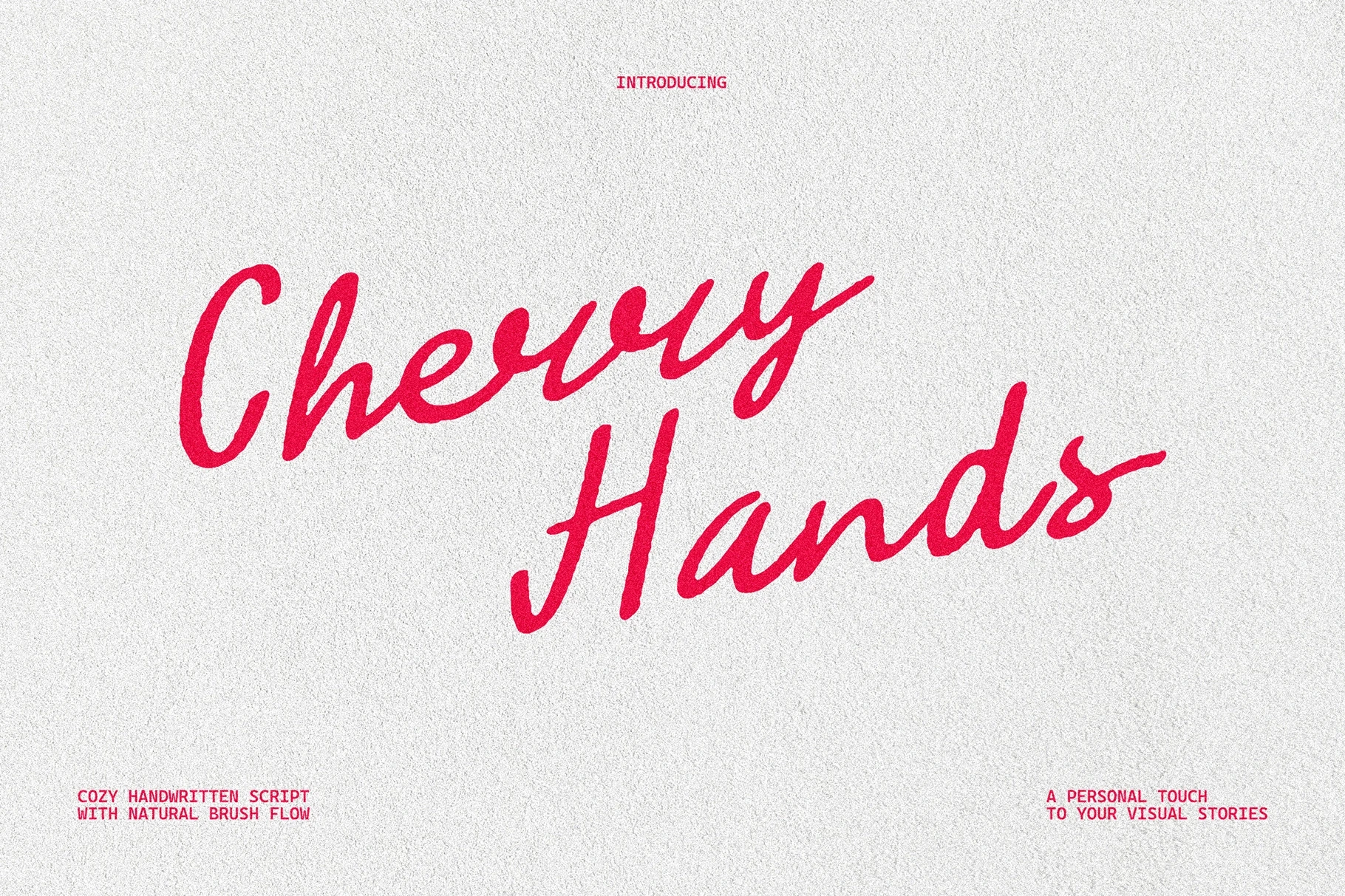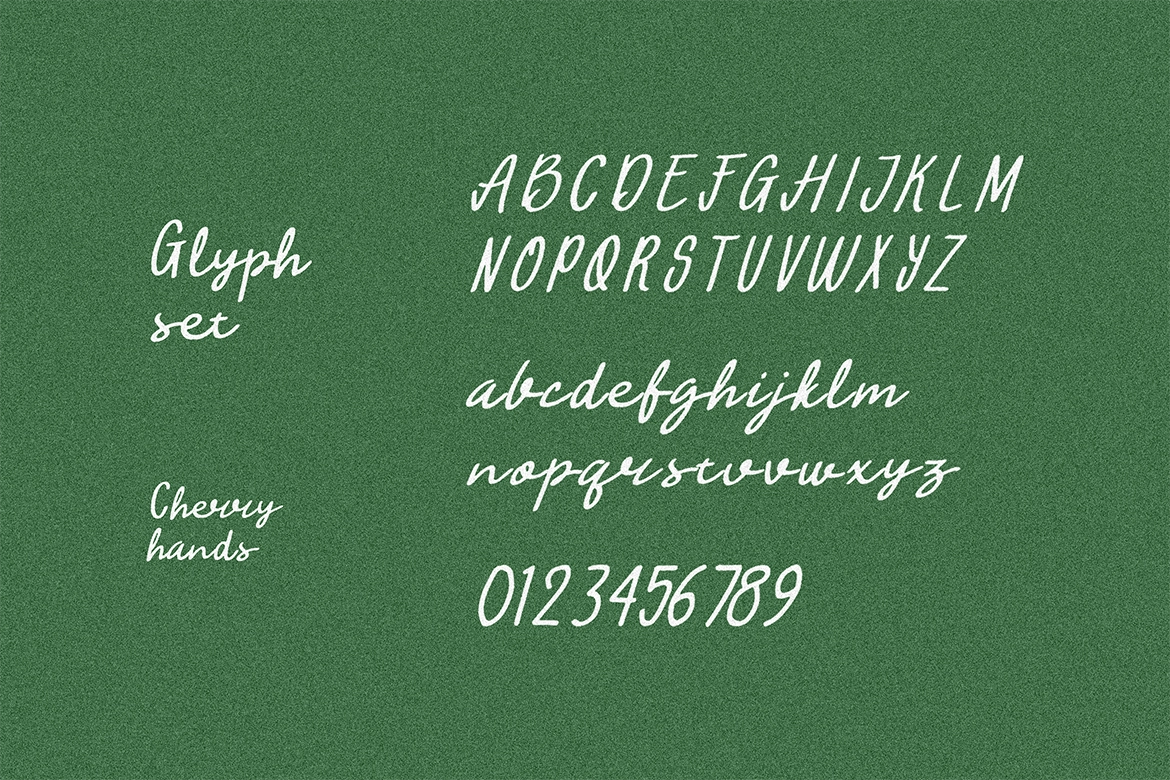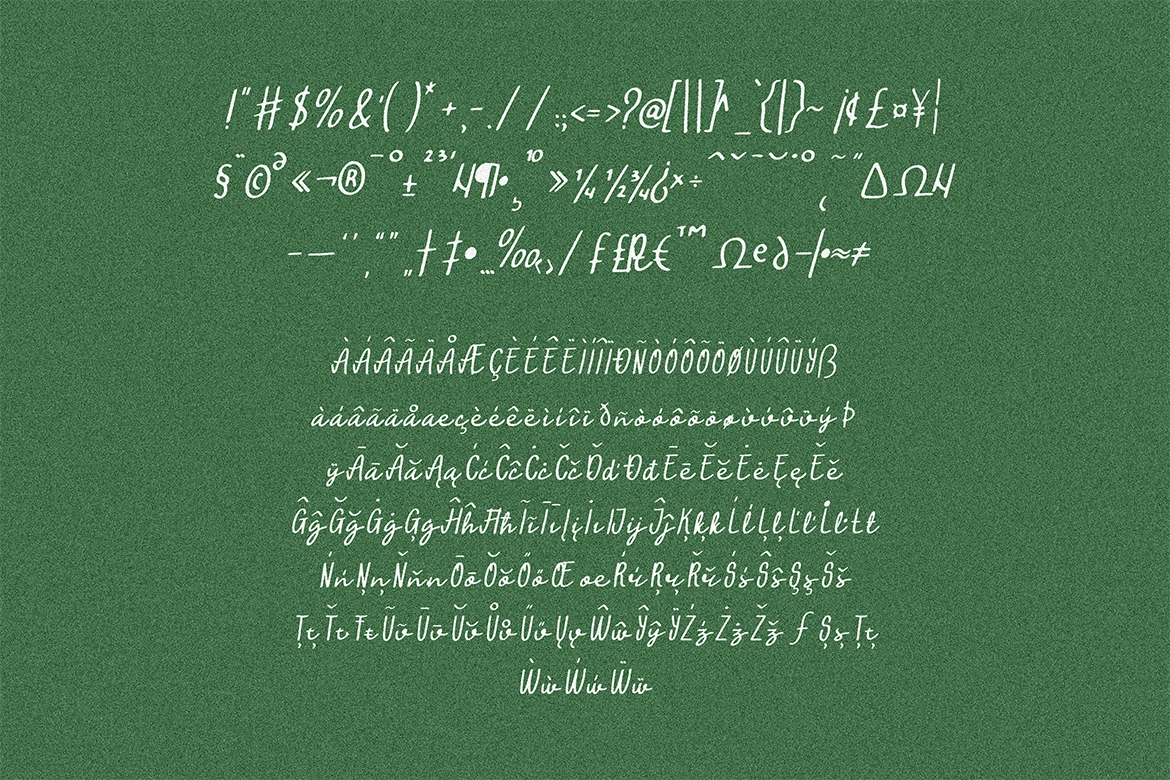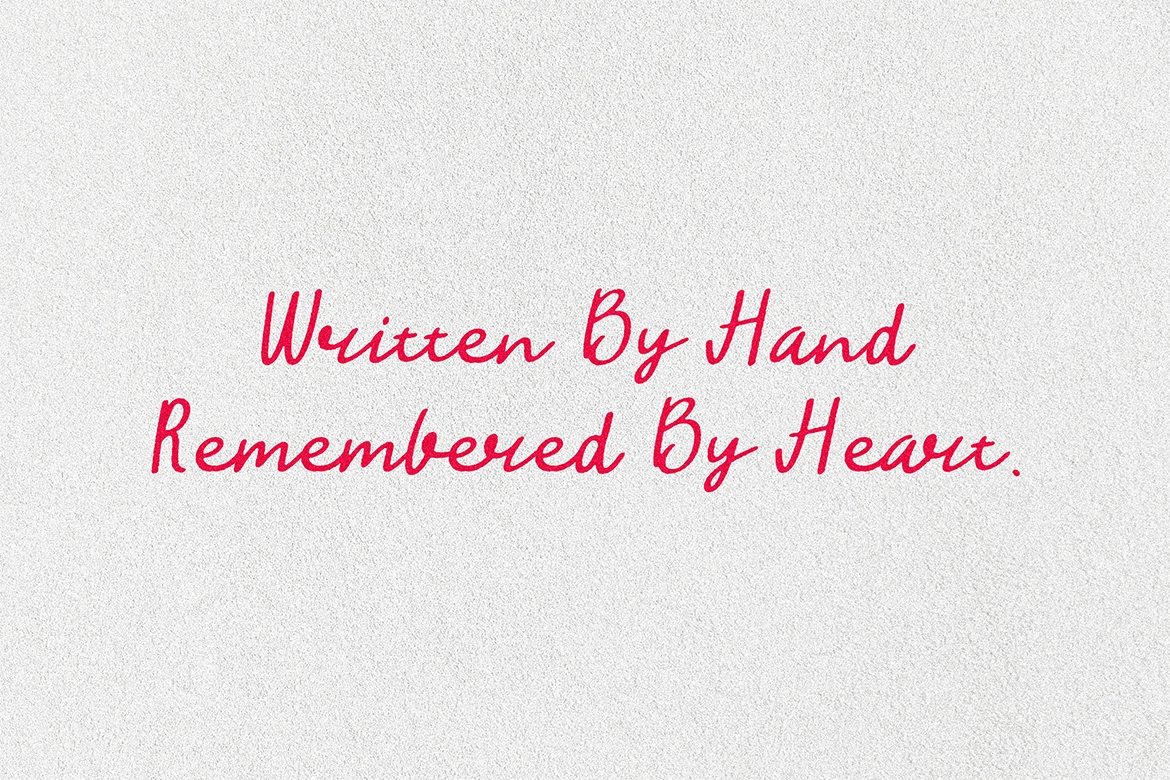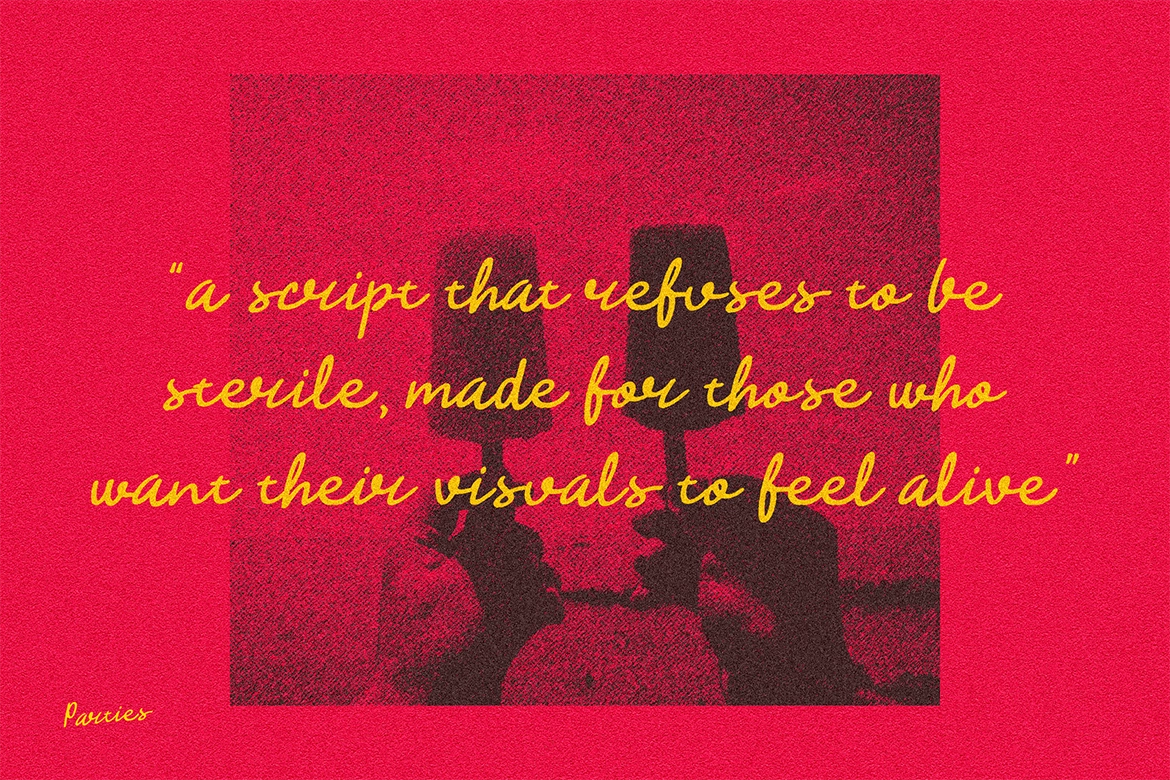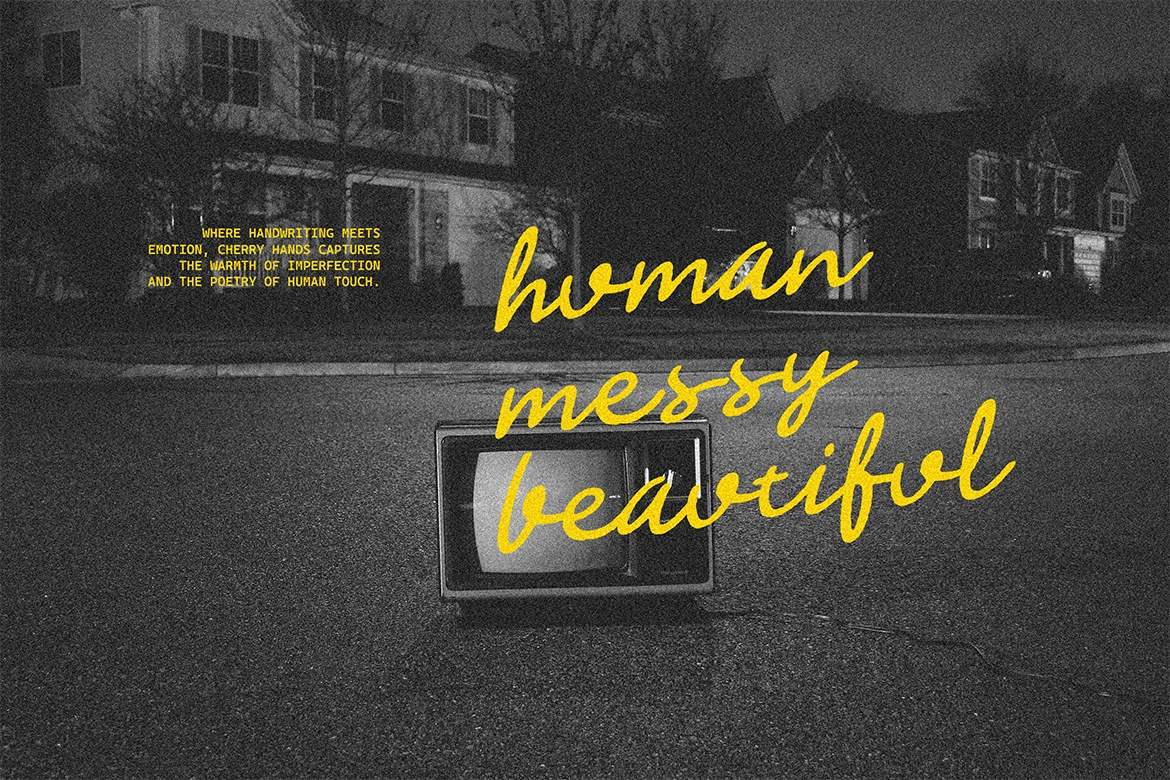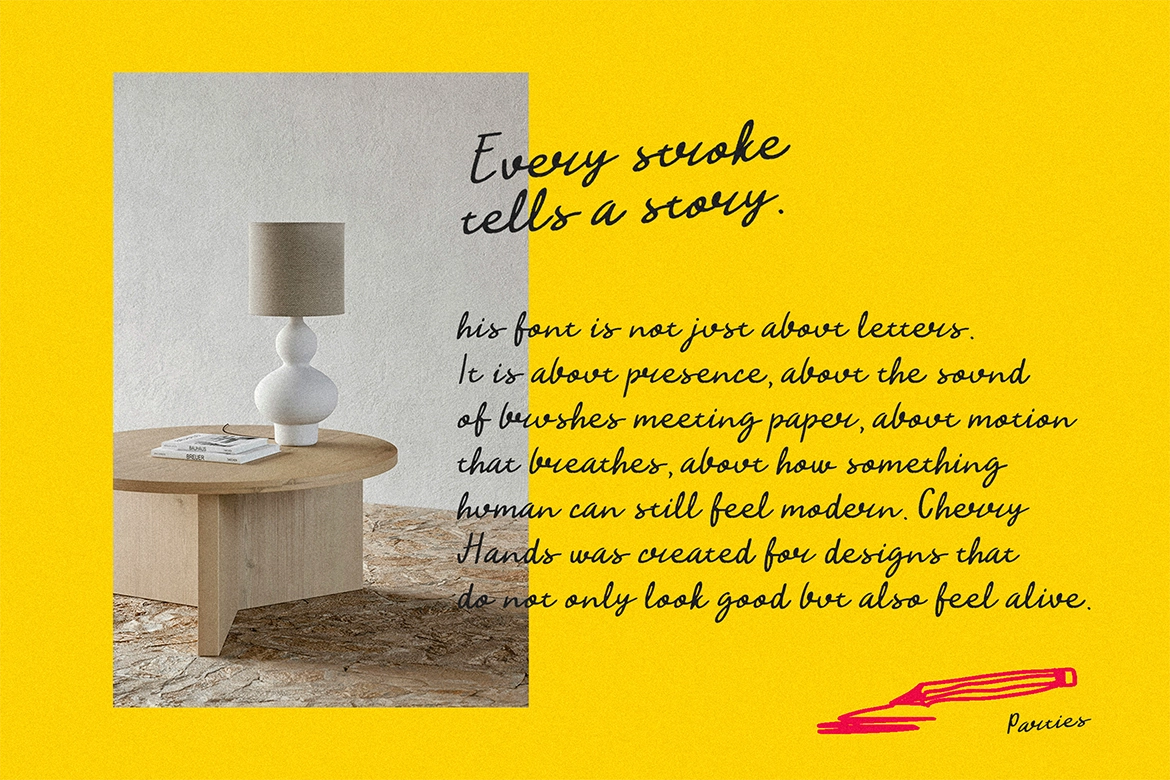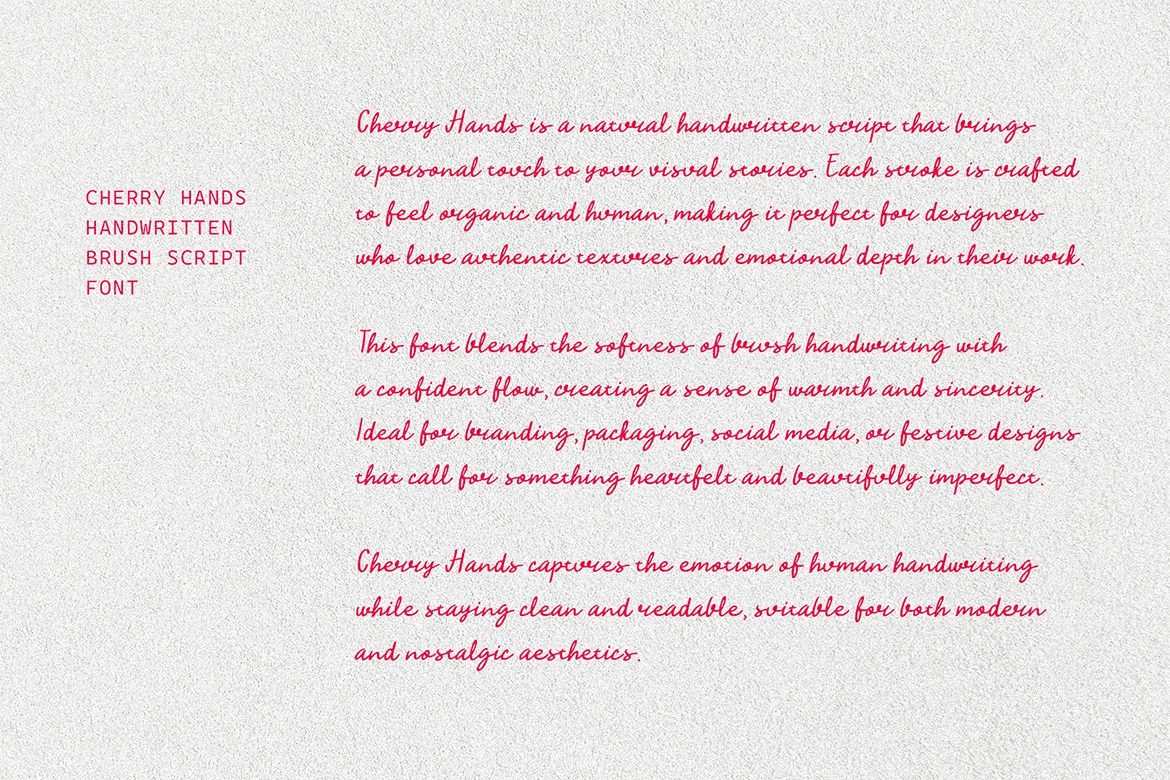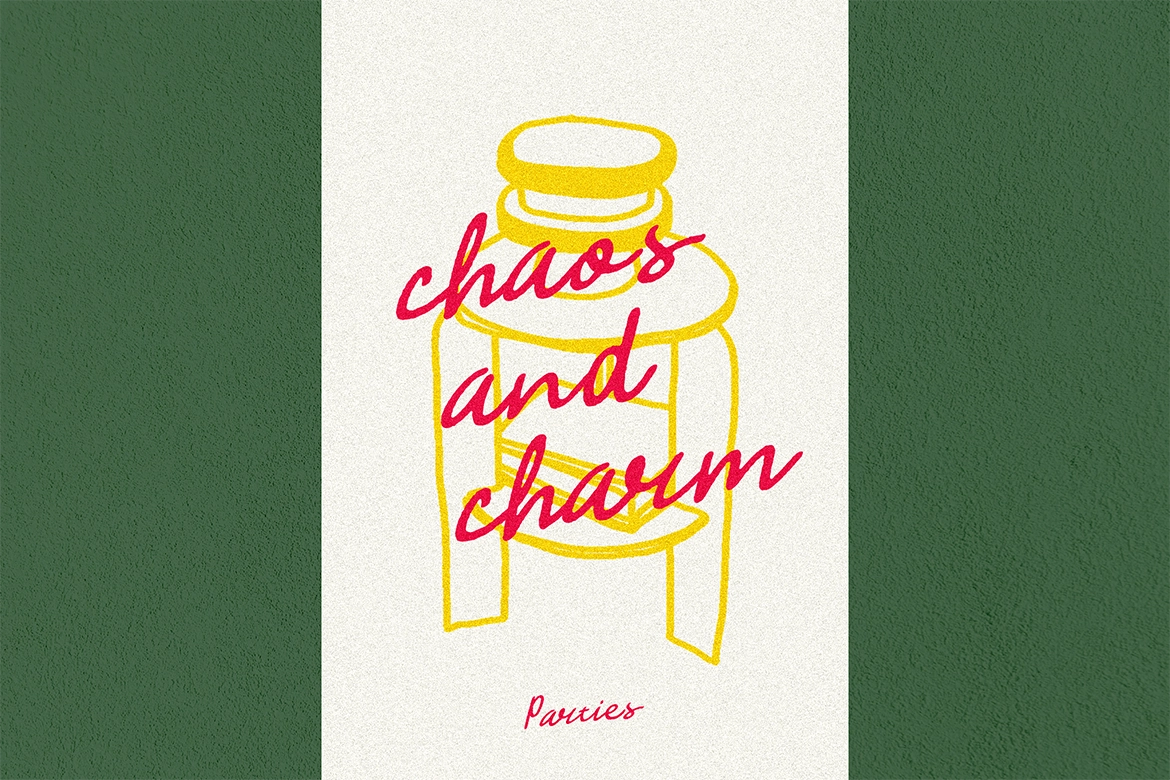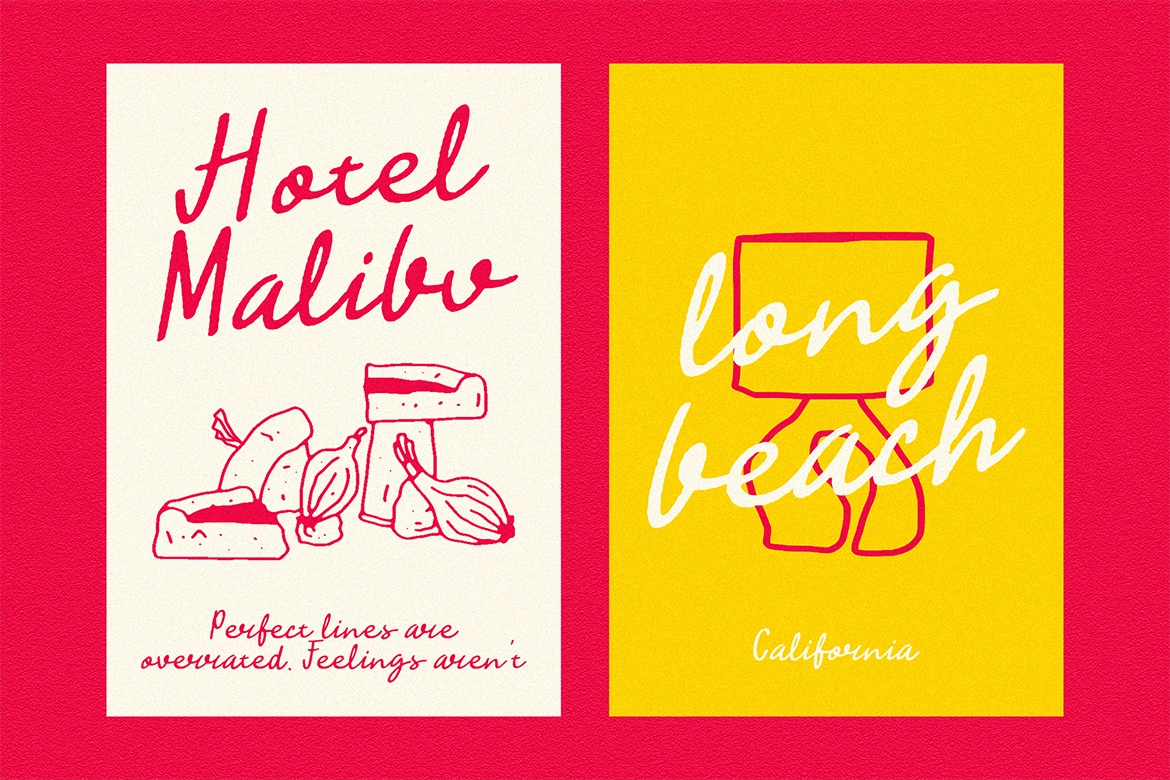
Cherry Hands - Handwritten Script Font
This handwritten script has a personal, easygoing rhythm with brush-like strokes, soft edges, and a lively baseline. Its letters carry a human touch without losing readability, making it a strong choice for designs that need warmth, sincerity, and a bit of charming imperfection.
Use Cherry Hands for logo design, brand marks, packaging labels, greeting cards, wedding stationery, social media quotes, product tags, posters, café menus, festive invitations, personal notes, and more. It works especially well for projects that call for expressive lettering with a casual, heartfelt voice.